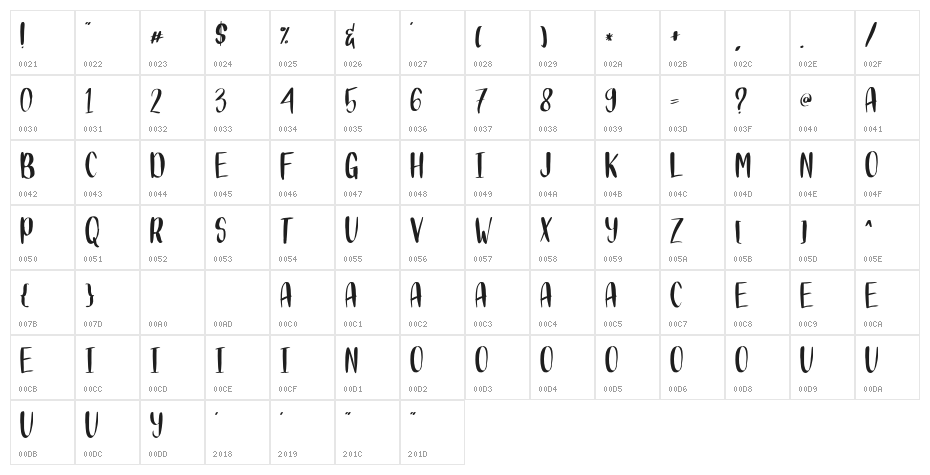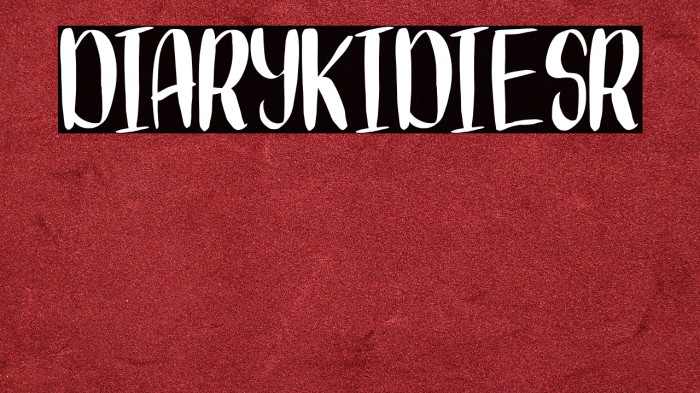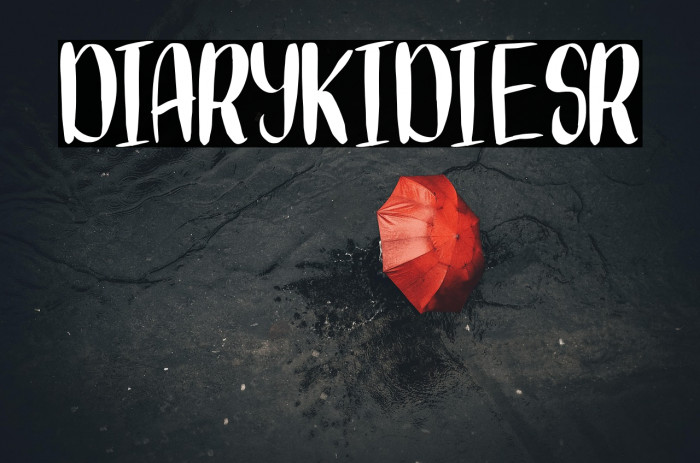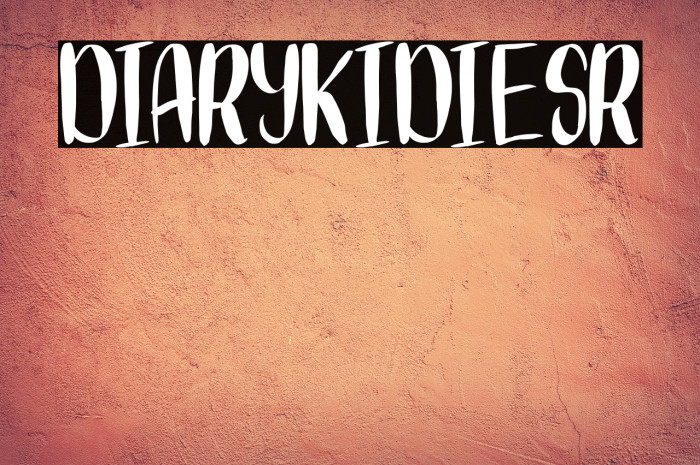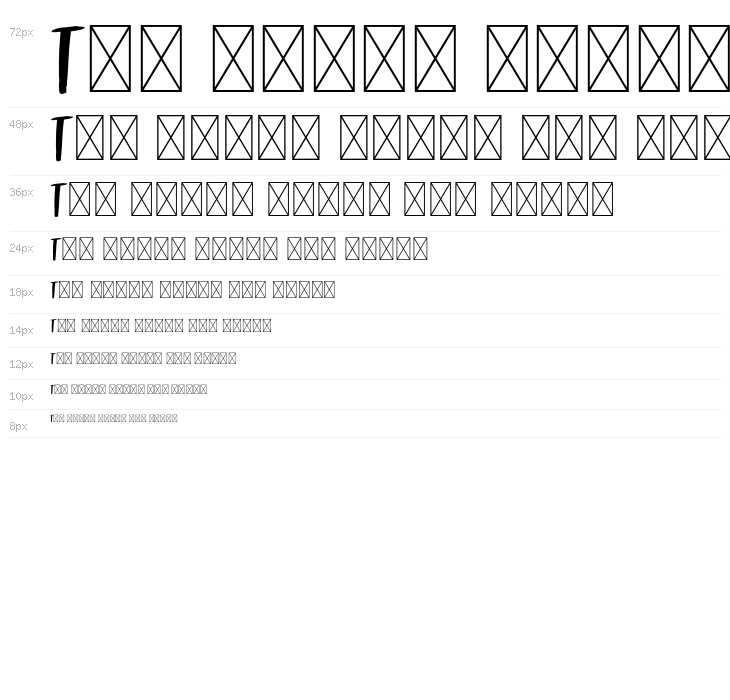
DIARYKIDIESRegular Font
DIARYKIDIESRegular Description
This font features a playful and energetic style with a handwritten appearance. The uppercase letters are bold and dynamic, showcasing a sense of movement and flair. The lowercase letters maintain a consistent flow, complementing the uppercase with their casual and approachable design. The numbers are distinct and easy to read, while the special characters add a touch of whimsy. Overall, this font exudes a youthful and lively vibe, making it perfect for projects that require a fun and informal touch.
| Overall Style | Playful |
| Proposed Projects | Ideal for children's books, playful branding, greeting cards, and creative posters. |